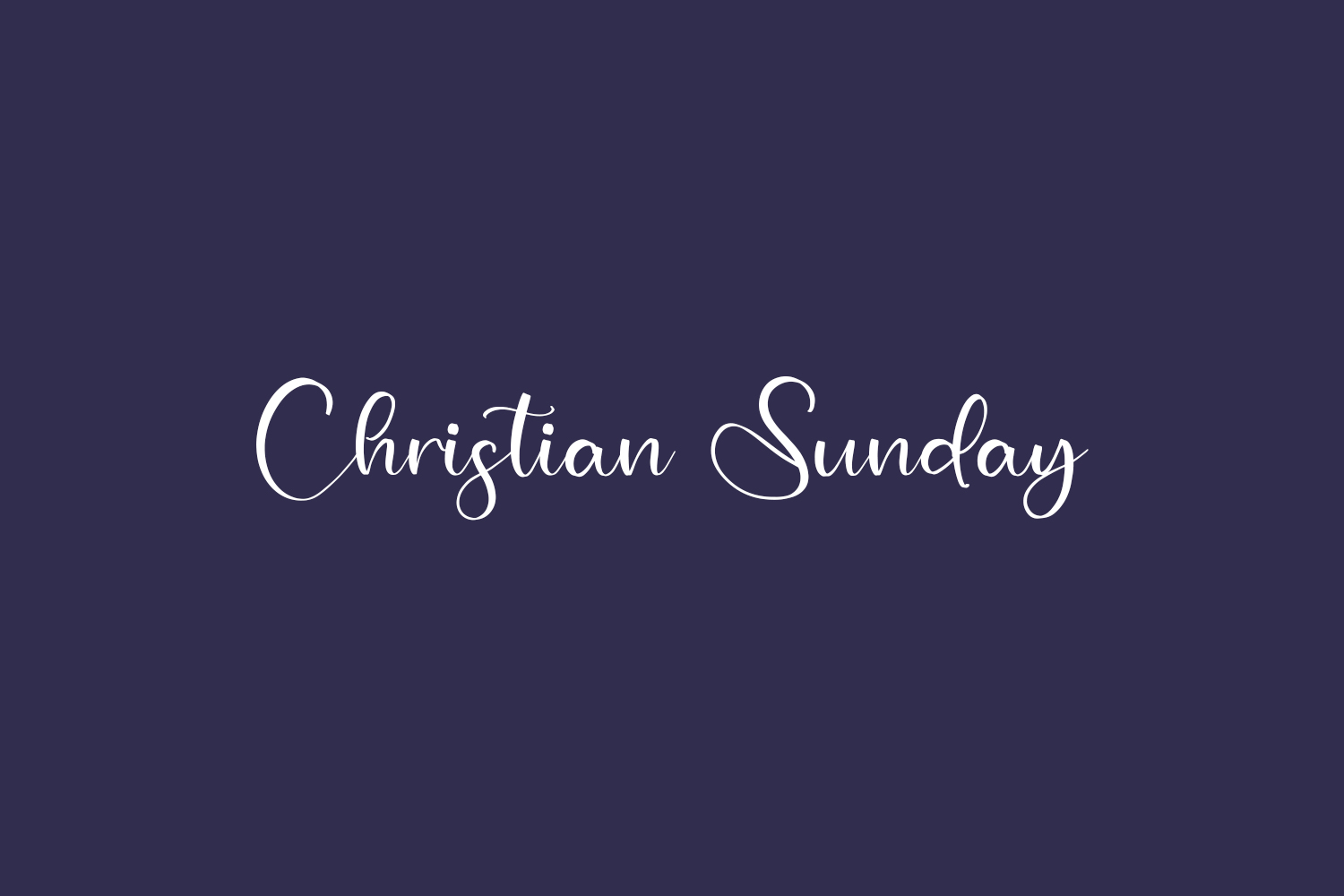
Christian Sunday Free Font is a lovely and delicate script font that exudes elegance and class. This font was particularly crafted for those who need a beautiful and refreshing look to their designs. Christian Sunday Free Font is free for personal use only. Please purchase the full version for commercial use.
Designed by Integritype Studio